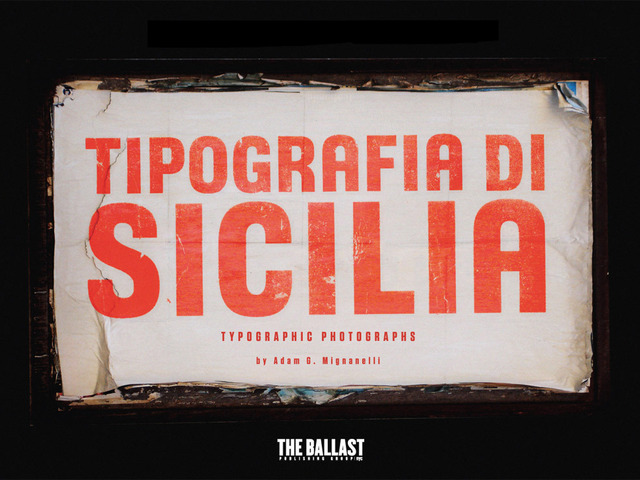
Tipografia di Sicilia is a book of photographs studying the relationship of typography and signage with the land and people of Sicily.
During a trip to Sicily in the summer of 2007, I was in awe of the rich typographic landscape that scattered the cities and towns throughout the independent island off the coast of southern Italy. The tattered and gritty signs, scrawls and messages, seemed to be telling a story, creating a narrative for the land and the communities these signs inhabited. I photographed hundreds of signs and lettering throughout the island, in cities and in small towns. The archaic and raw landscape of Sicilian towns and cities juxtaposed with these signs create a wonderful mixture of the new with the old, while showcasing the coarse reality of communication.
With my love for typography and photography, I started laying out a book to help narrate the story the signs tell, about communication and Sicily as a modern and historical island of harsh realities and their proud independence.
I have been color correcting, editing and pacing the pages of the book for the past 3 years. I have written the introduction, edited down the book to 117 pages of full color photographs, and now I am finally ready to go to press with the book! You can take a look at some of the images, and some extras at the book's website http://www.tipografiadisicilia.com
This has been a dream of mine to make this project come alive, so others can see the blend of type and environments come together in such a unique place on earth.